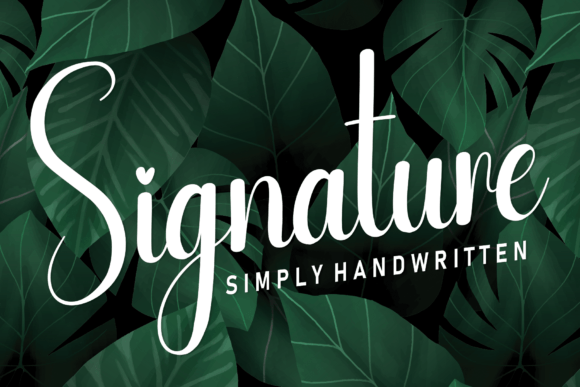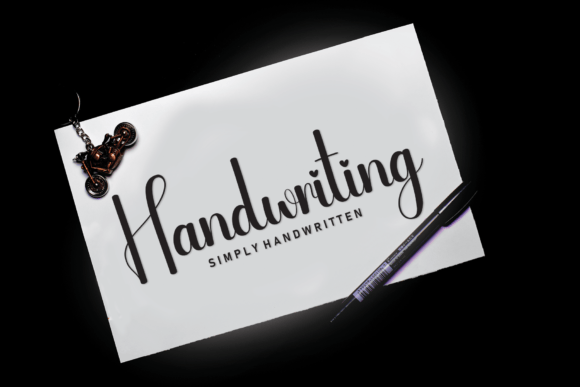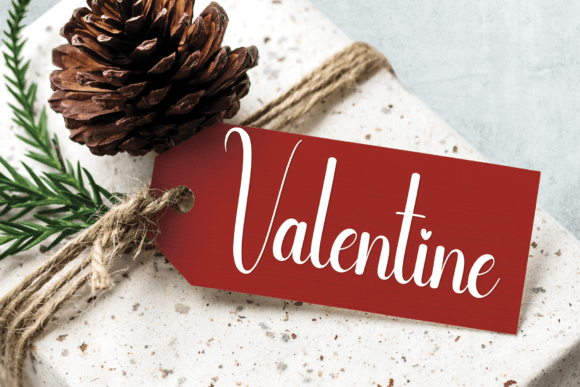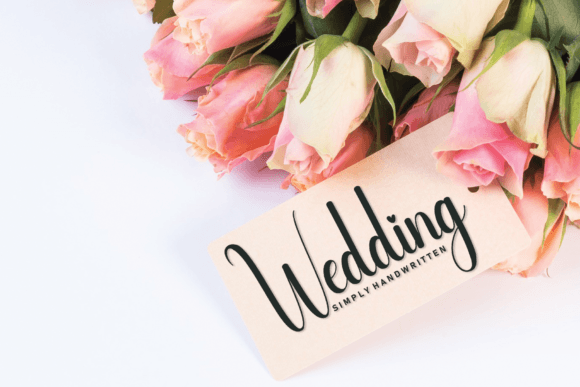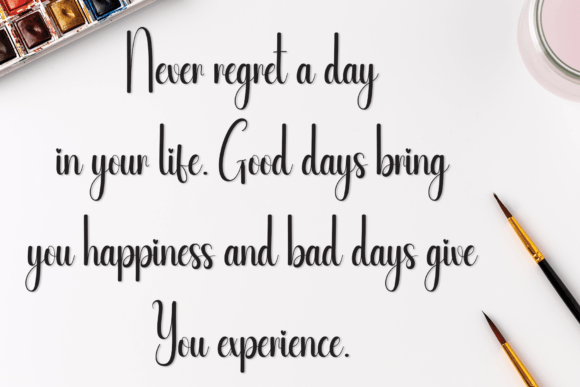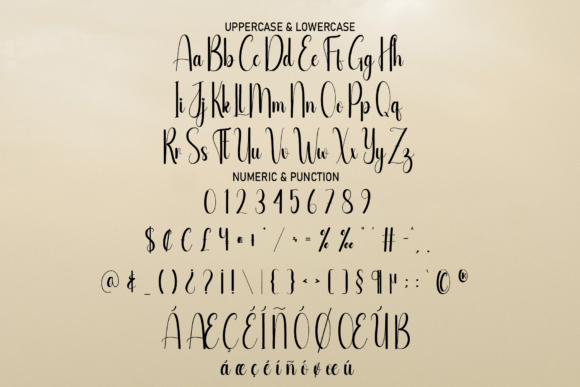
The Charm of Dwelling House Font: A Designer’s Delight
I’ll never forget the time I was working on a wedding invitation project, and my client asked for a font that was both elegant and charming. I scoured the internet, tried out countless fonts, but nothing seemed quite right. That was until I stumbled upon Dwelling House Font. It was love at first sight! 💕
In this article, I’ll share my experience with Dwelling House Font, its features, and how to make the most of it in your designs. Whether you’re a designer, crafter, or creative hobbyist, you’ll find this font to be a versatile and beautiful addition to your toolkit.
- ✨ Elegant and charming handwritten touch
- ✅ Perfect for wedding invitations, thank you cards, and greeting cards
- ✅ Works well for logos, business cards, and quotes
- ✅ Easy to read and pairs well with other fonts
While Dwelling House Font is an excellent choice, there are a few things to keep in mind:
- ⚠️ Limited availability of stylistic alternates
- 🤔 May not work well for body text due to its elegant, cursive nature
A Practical Guide to Using Dwelling House Font
- Experiment with OpenType features, such as ligatures and stylistic alternates, to add visual interest.
The Backstory of Dwelling House Font
While the origins of Dwelling House Font are unclear, it’s likely that it was designed with the intention of creating a beautiful, handwritten font for everyday use. The designer may have been inspired by traditional calligraphy and handwriting, aiming to create a font that felt both elegant and approachable.
Q: What type of projects is Dwelling House Font best suited for?
A: Dwelling House Font is perfect for projects that require a handwritten touch, such as wedding invitations, thank you cards, quotes, and greeting cards.